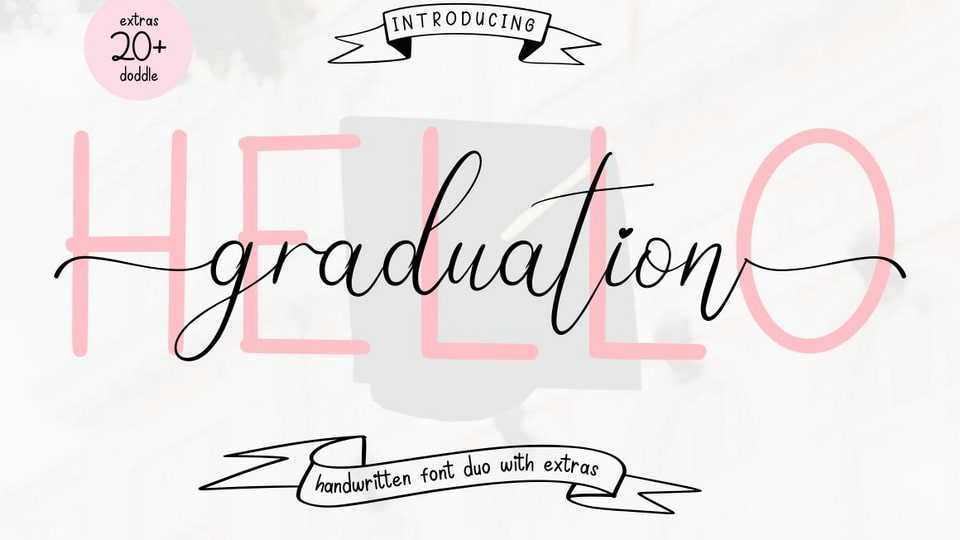
Hello Graduation Font Duo › Fontesk
Download Hello Graduation fonts, a beautiful and playful font duo, featuring handwriting script and handwriting sans serif fonts. Hello Graduation is suitable for logotype, headline font, in corporate identity, brand identity, apparel and more.